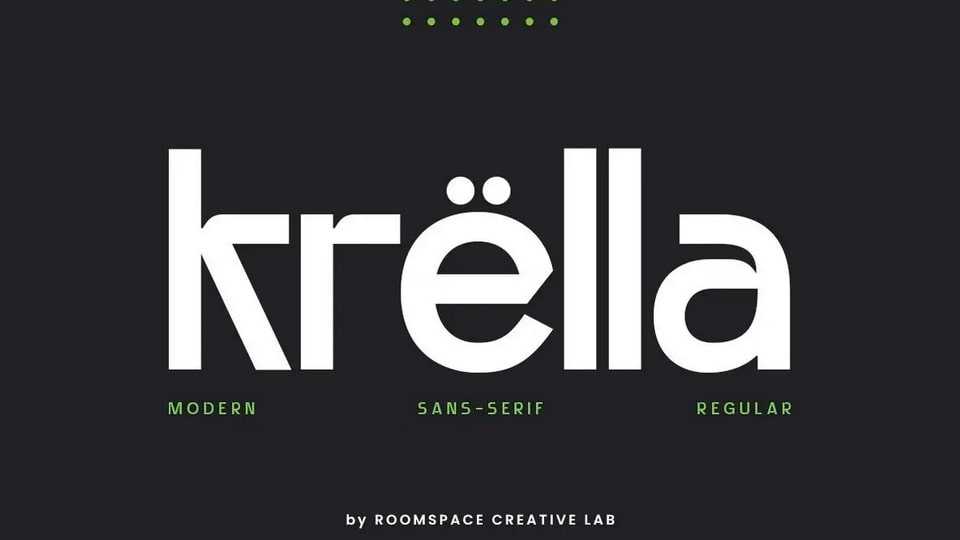
Download Krella font, a sleek and contemporary sans-serif typeface. Perfect for both digital and print media, Krella brings a touch of modernity to your projects.